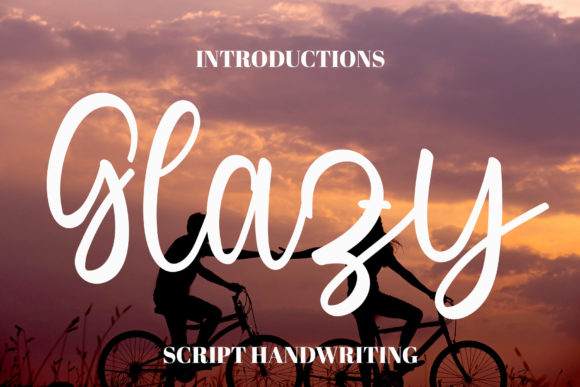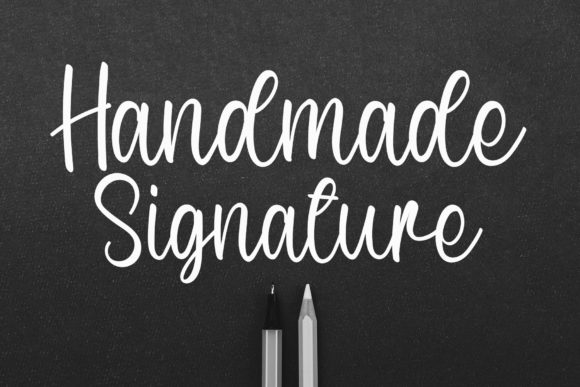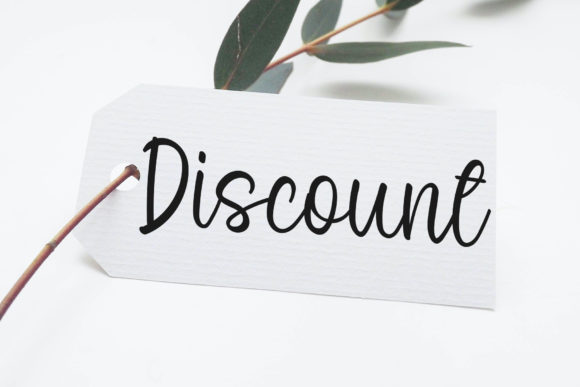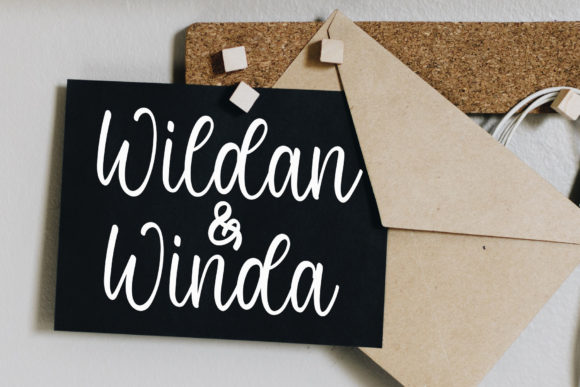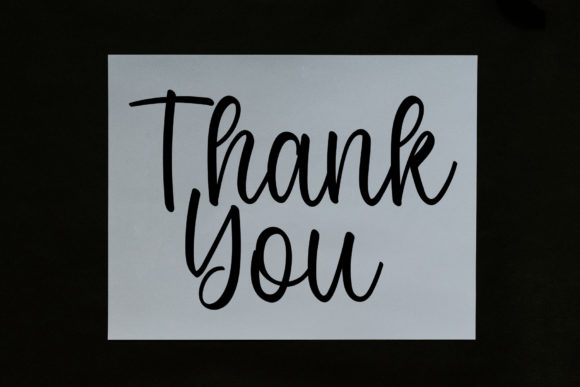
Glazy Font
About Glazy Font
“Glazy” is a friendly handwritten font thoughtfully crafted to become a true favorite. With a delightful combination of classy calligraphic influences and a contemporary, fresh feel, this font offers a unique and versatile choice for various design projects.
The friendly and contemporary nature of “Glazy” makes it suitable for a range of applications. Whether you’re working on invitations, social media graphics, branding materials, or any project that requires a touch of warmth and style, this font seamlessly blends classic and modern elements.
Imagine “Glazy” enhancing wedding invitations, where its calligraphic influences add a touch of timeless elegance. The font’s friendly demeanor contributes to a welcoming and personal atmosphere, making it perfect for capturing the essence of special events.
In branding projects, “Glazy” becomes a standout choice, infusing your visual identity with a blend of class and modernity. The font’s versatility ensures that it can adapt to diverse industries and styles, leaving a lasting impression on your audience.
For social media posts or any design requiring a friendly touch, “Glazy” brings a unique character. Its handwritten style adds a personal and approachable feel, making your content more relatable and engaging.
As you integrate “Glazy” into your creative projects, let its friendly handwritten charm inspire your designs. Whether you’re working on print materials or digital media, this font stands as a favorite choice to add a touch of warmth, style, and contemporary flair to your creations.